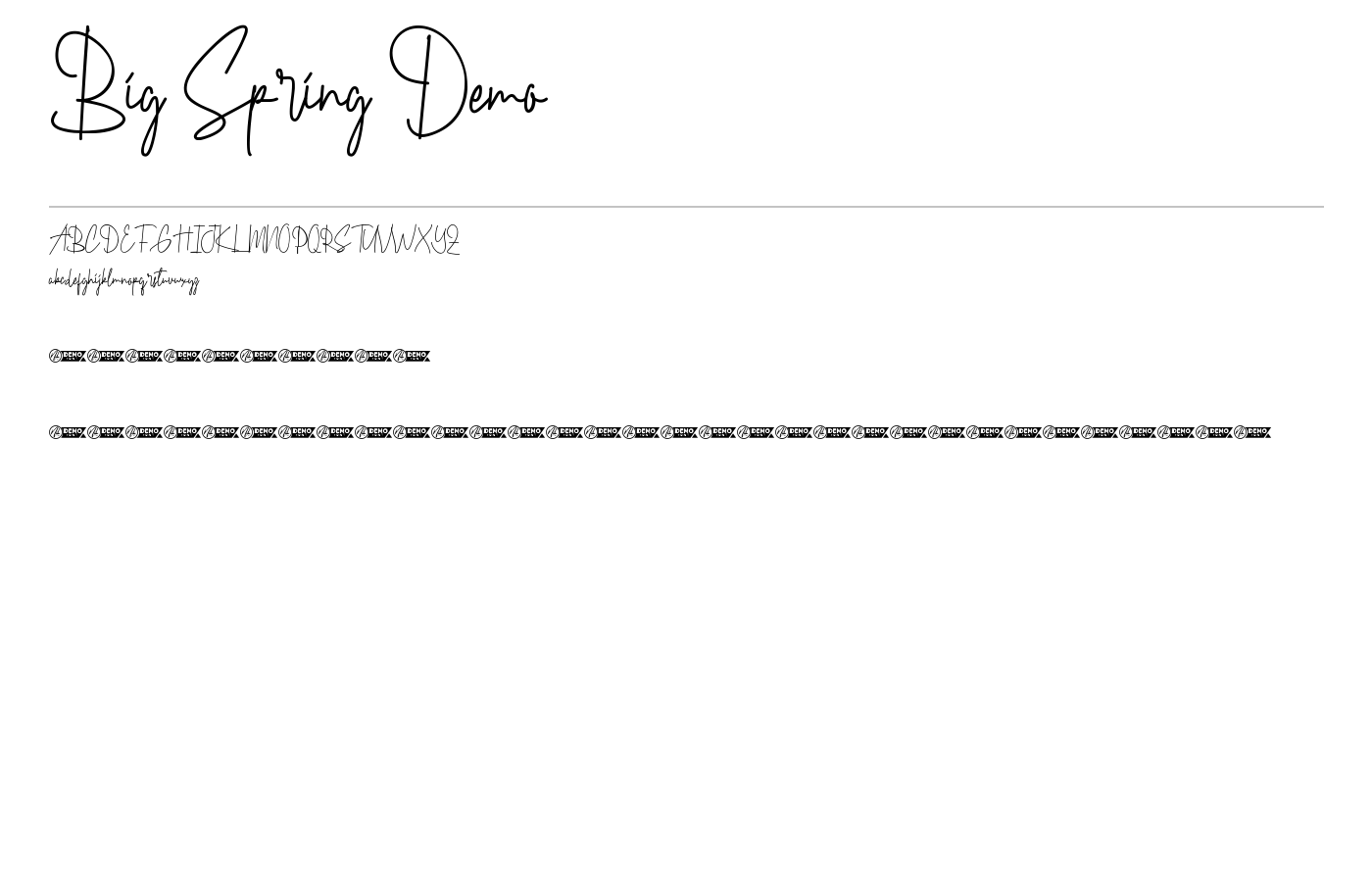
Big Spring Demo is an elegant, handwritten script font characterized by its tall, narrow letterforms with a delicate and flowing style. Its thin strokes and whimsical, casual feel make it perfect for creative projects that seek a personal, artistic touch, such as invitations, branding, or fashion-focused designs. This font adds a sense of charm and sophistication while maintaining a light, airy appearance that works well in headlines and decorative text.
Big Spring Demo Font
About Big Spring Demo Font
| Font family | Big Spring Demo Font |